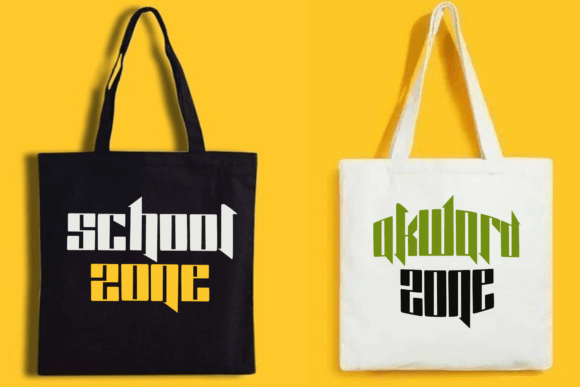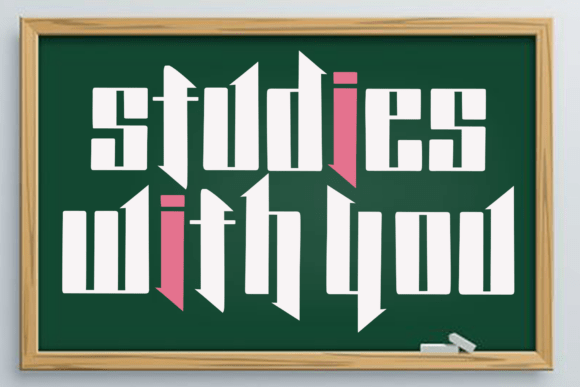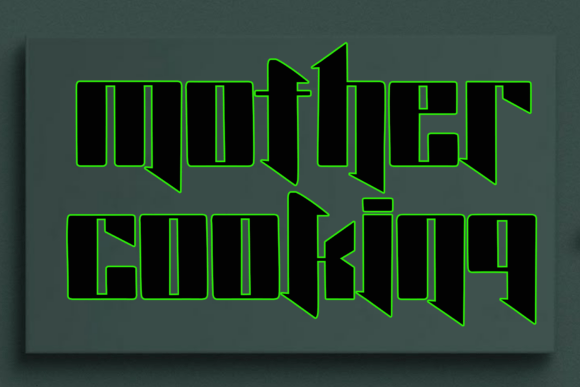
Introduction to Hightechs Font
Hightechs is a sharp, angular display handwriting font with a cyberpunk twist.
It features geometric lines and a futuristic aesthetic that’s perfect for tech designs, gaming visuals, science fiction posters, and digital projects that demand a bold edge .